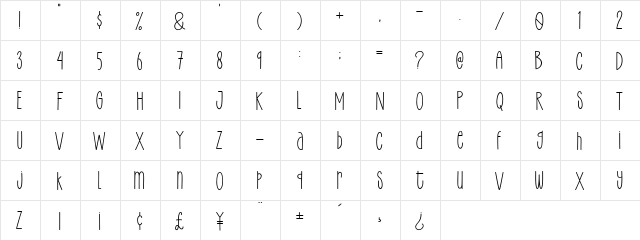
Enjoy Writing Regular
| Foundry | Khurasan |
| Designer | Khurasan |
Design Context for Enjoy Writing Typeface
Enjoy Writing offers clean, dependable letterforms without strong stylistic allegiance, making it a practical choice for designers who need flexibility.